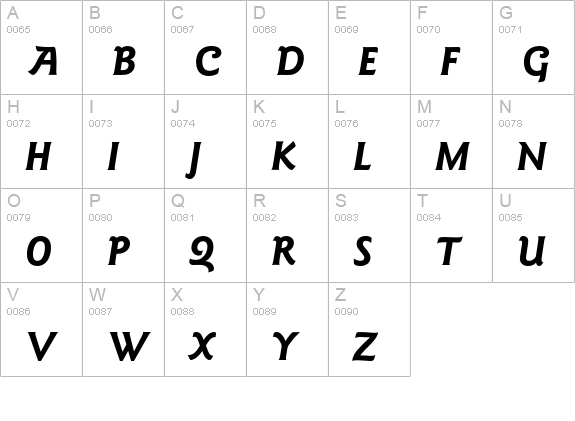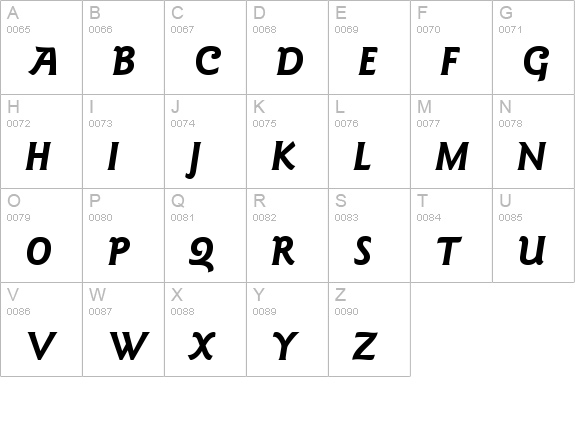
Goudy Sans* Bold Italic Font Details
Goudy Sans* Bold Italic is a strong, high-contrast, italic variant in the Goudy typeface family \xE2\x80\x94 well suited to headlines, attention-grabbing titles, and strong calls-to-action.
Goudy Sans* Bold Italic font is a modern and versatile typeface that exudes sophistication and style. With its bold and italic design, this font commands attention and adds a touch of elegance to any project. The sleek and streamlined letterforms of Goudy Sans* Bold Italic make it ideal for headlines, titles, and branding materials. What sets Goudy Sans* Bold Italic font apart is its seamless blend of classic elegance with a contemporary twist. The sharp angles and distinctive curves of each letter create a striking visual impact, making it a standout choice for design projects that require a touch of flair. Best of all, Goudy Sans* Bold Italic font is free to download at FontsMarket.com. Whether you're a seasoned designer looking to add a fresh new font to your collection or a beginner exploring typography for the first time, Goudy Sans* Bold Italic is a must-have addition to your toolkit. Download it today and elevate your designs with this exceptional font.